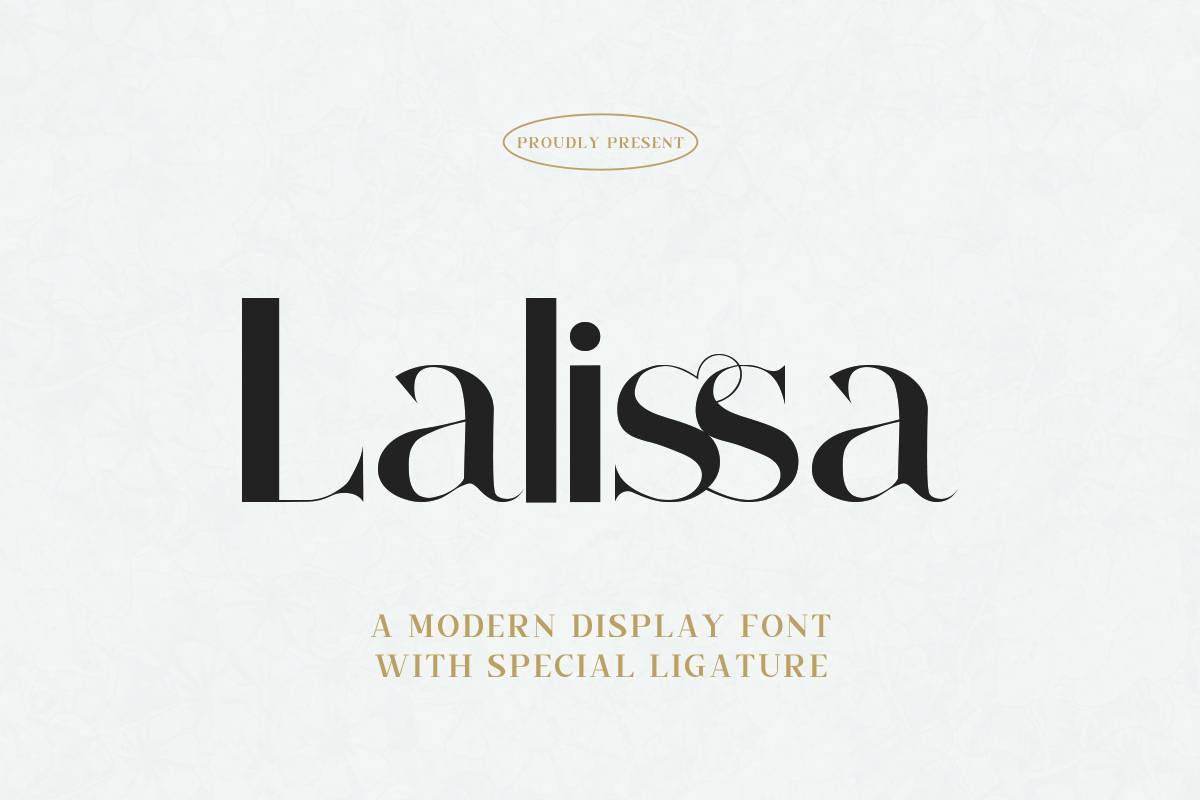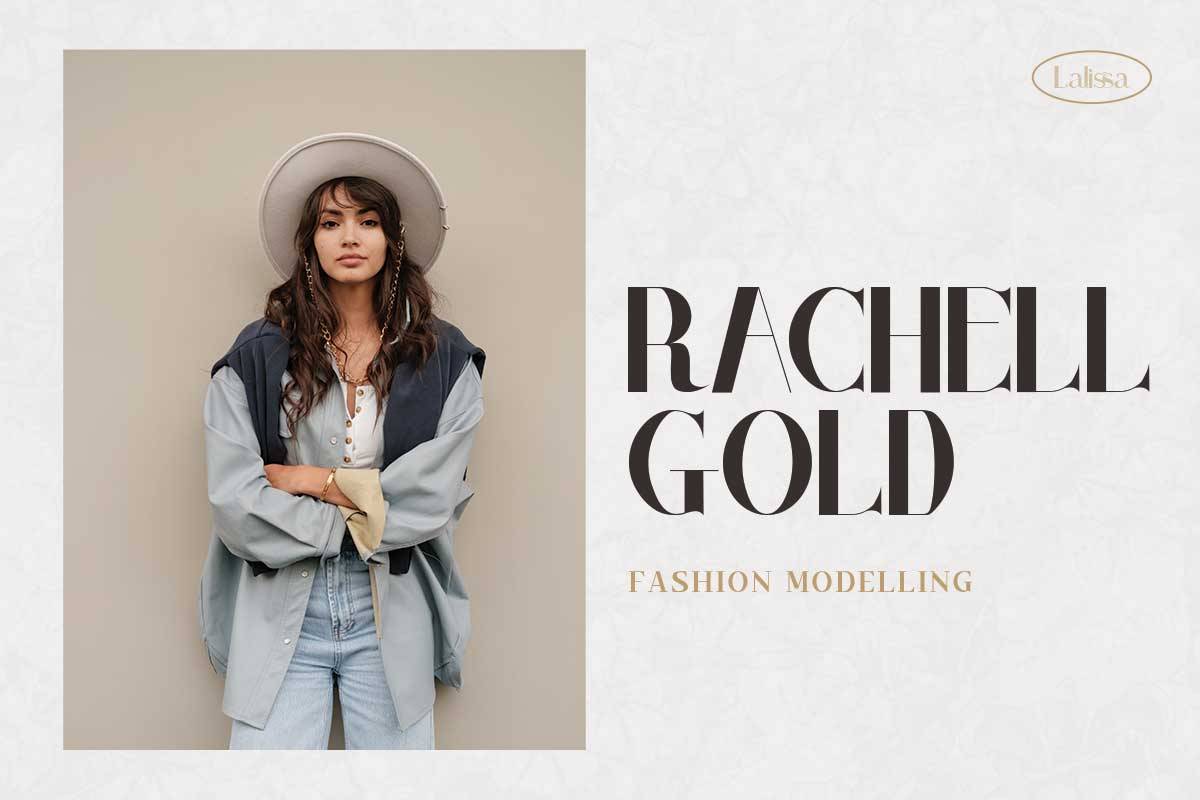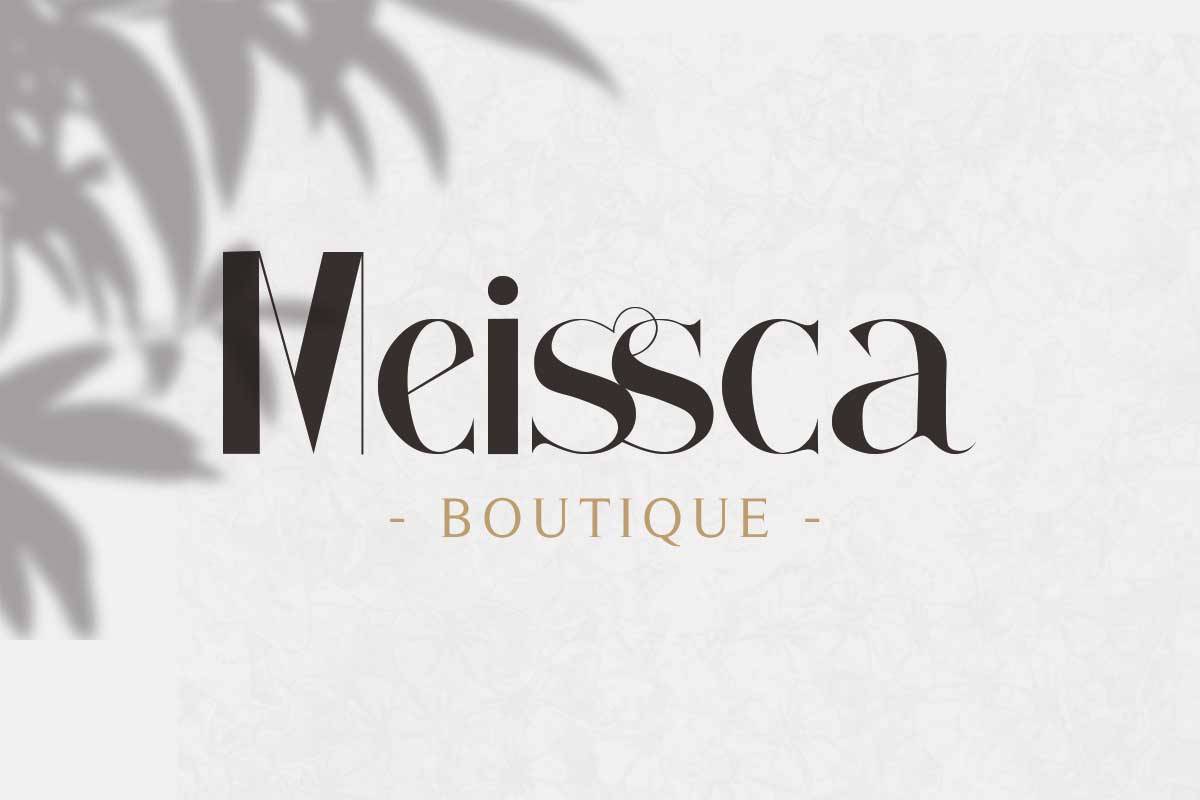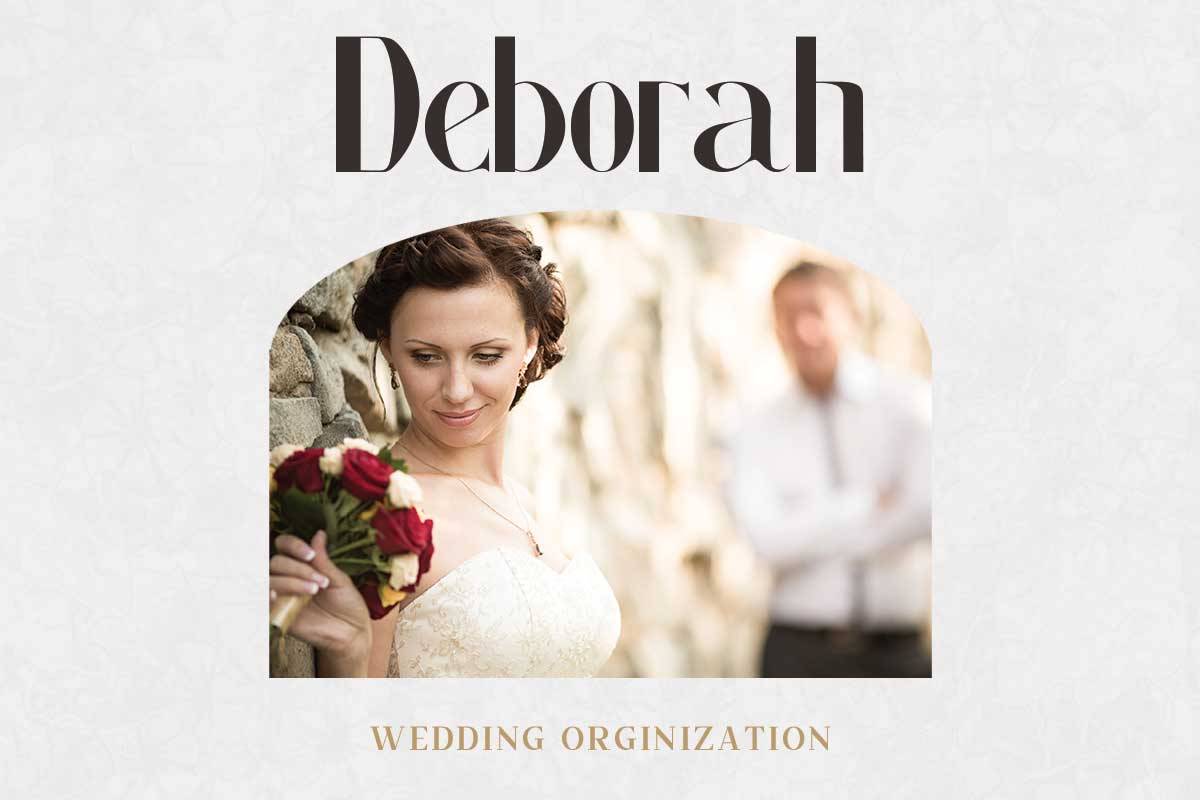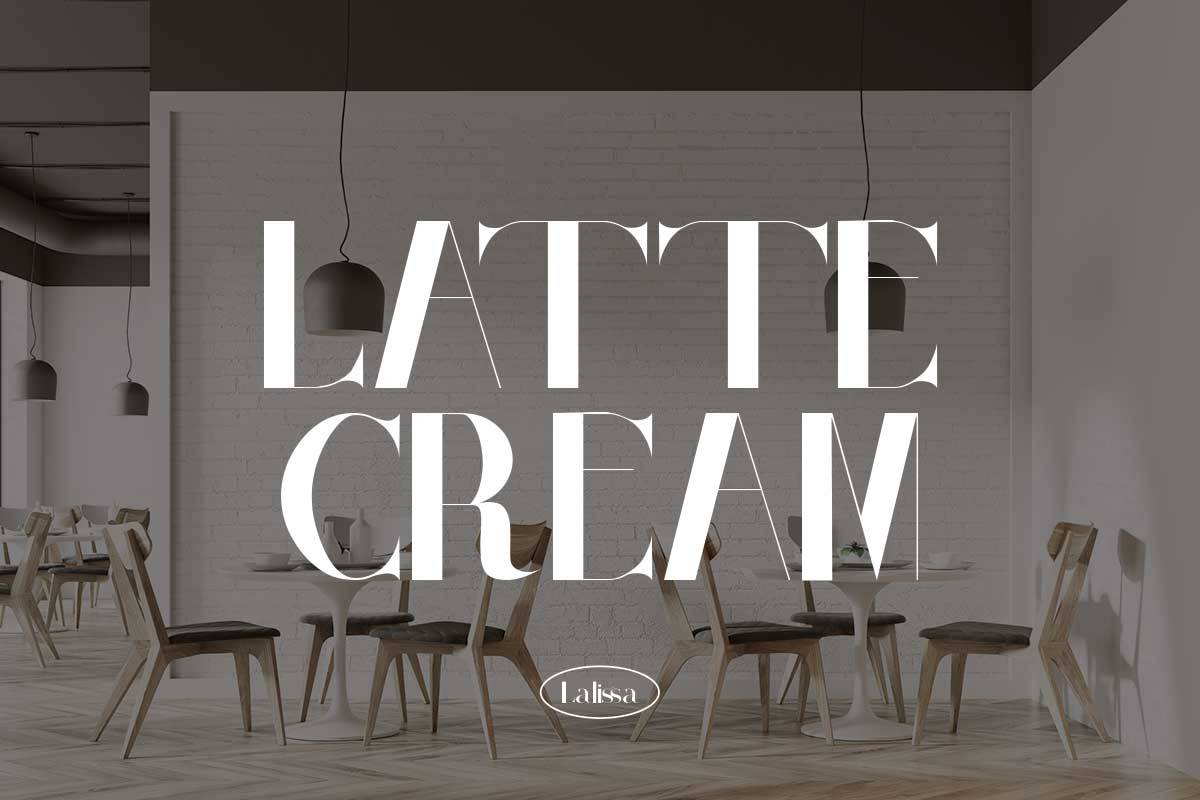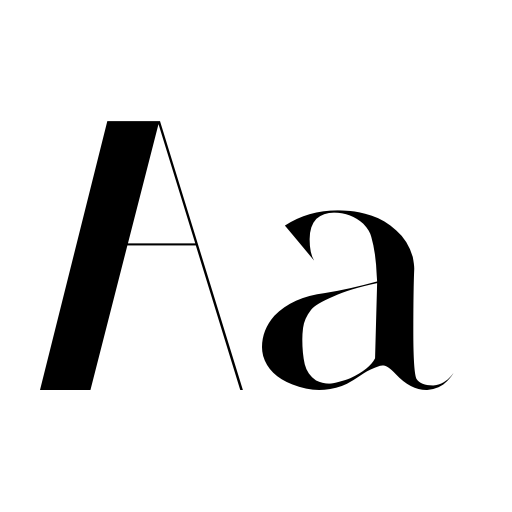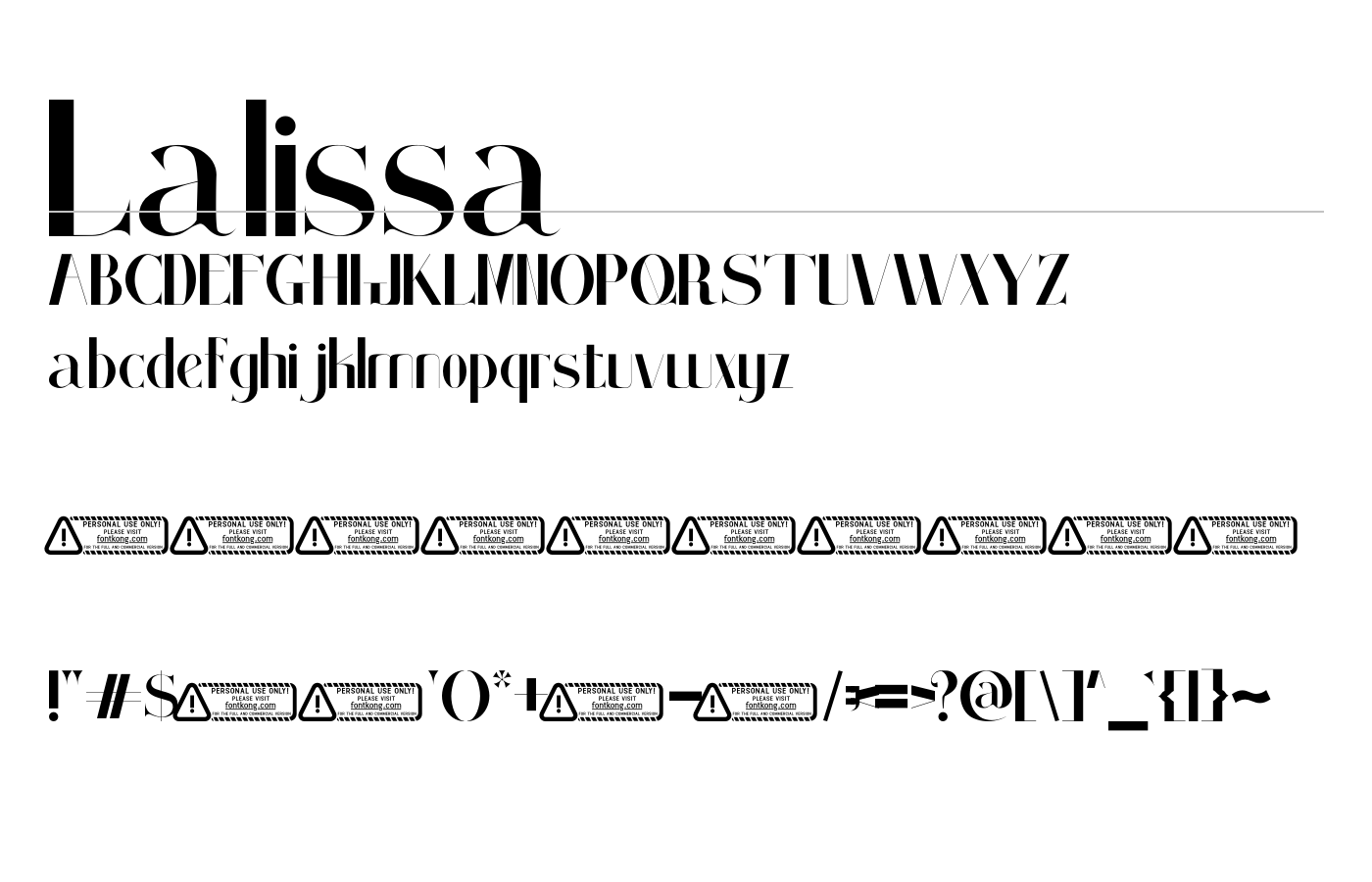
Lalissa is a striking modern serif font with high contrast between thick and thin strokes, giving it a bold and elegant look. Its tall, condensed letterforms and unique stylistic details make it perfect for fashion branding, luxury logos, and upscale editorial headlines where a sophisticated and contemporary feel is desired. This font stands out for its dramatic presence and refined style, making it ideal for impactful design projects that demand attention.